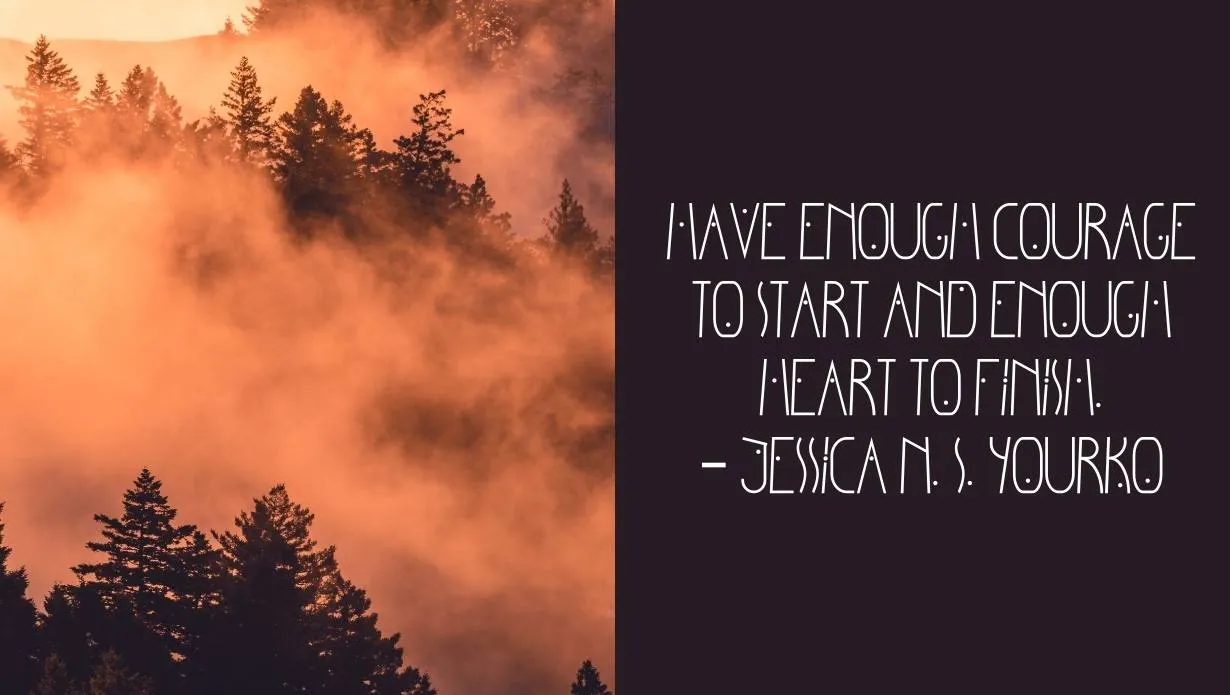
Welcome, We are going to introduce to you the best wonderful and eye-catching typeface style. This typeface’s name is Arcanista Font. It belongs to the Display typeface family. This attractive and stylish typeface was designed by a famous notable graphic designer named Victor Tramontin.
| Name | Arcanista Font |
| Designer | Victor Tramontin |